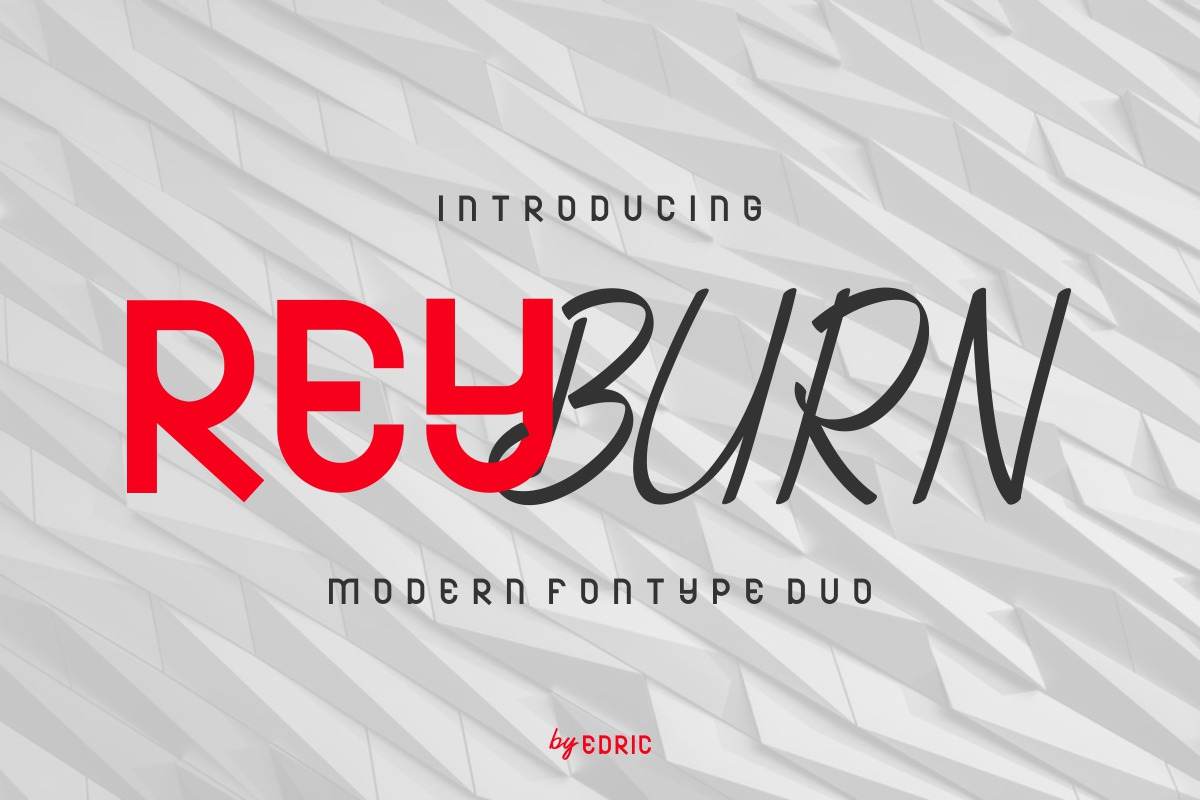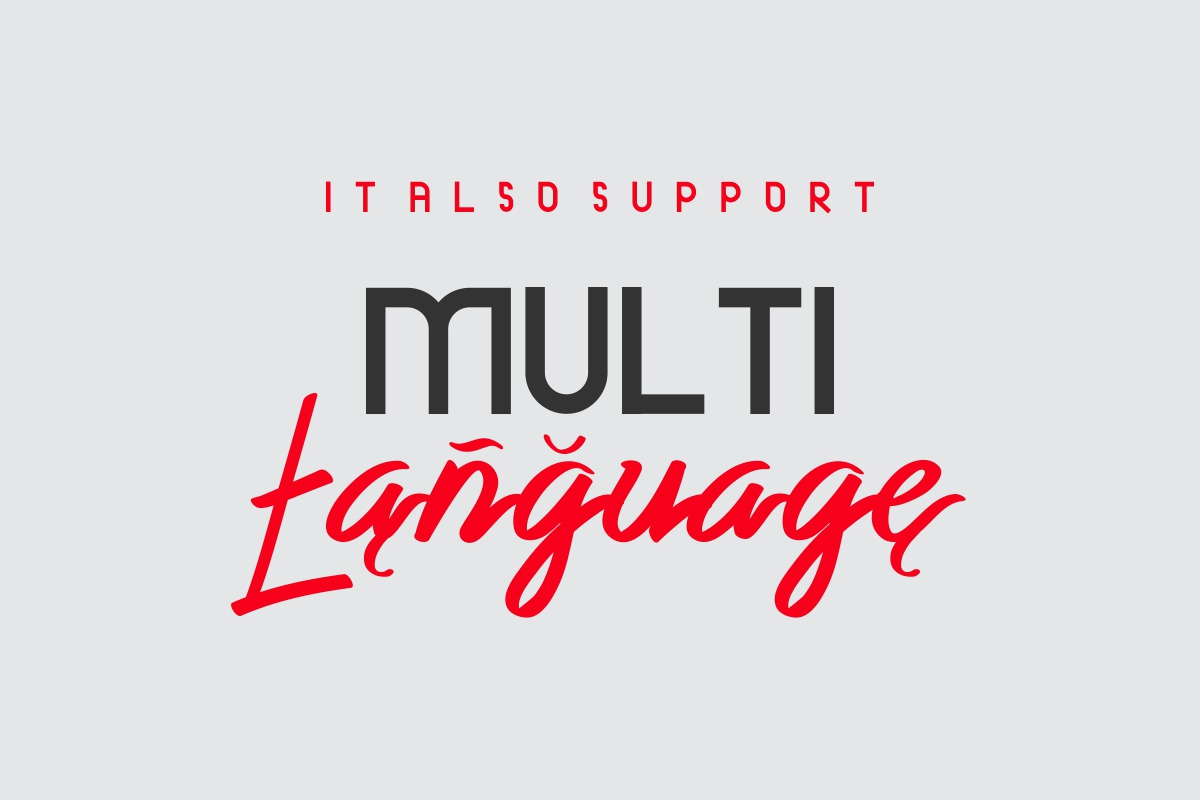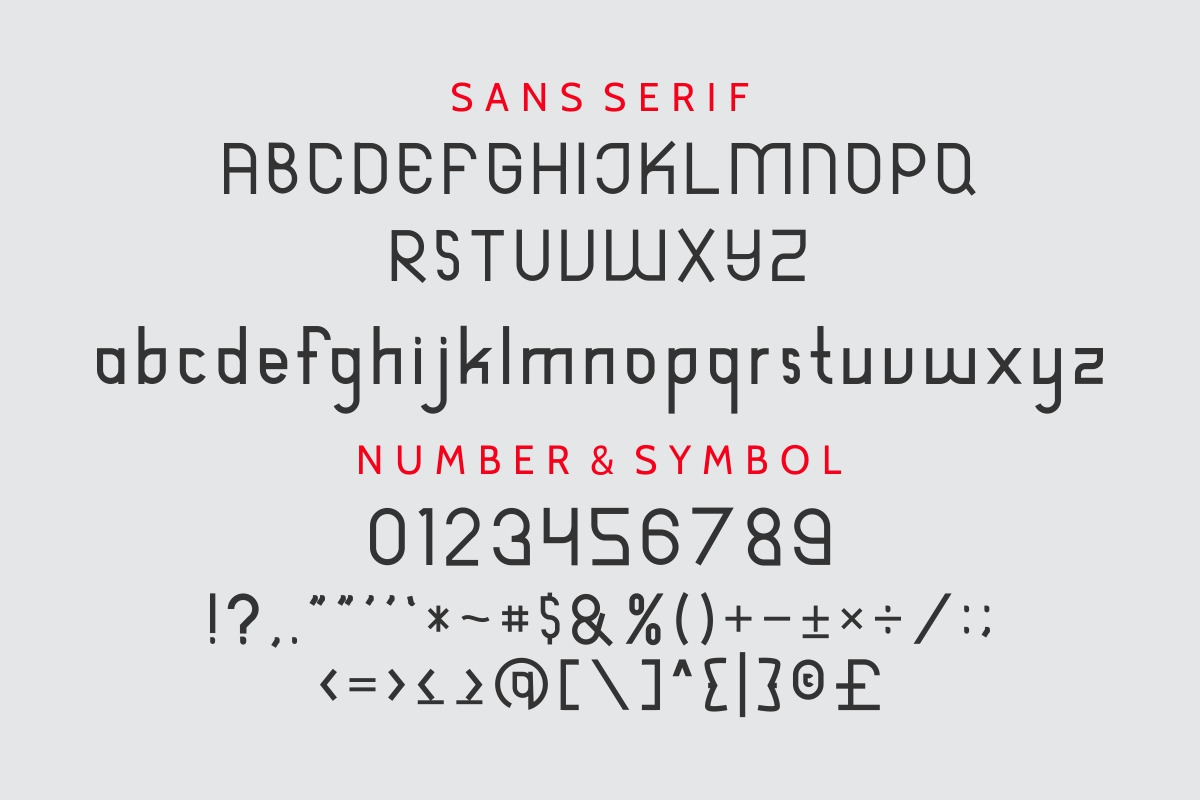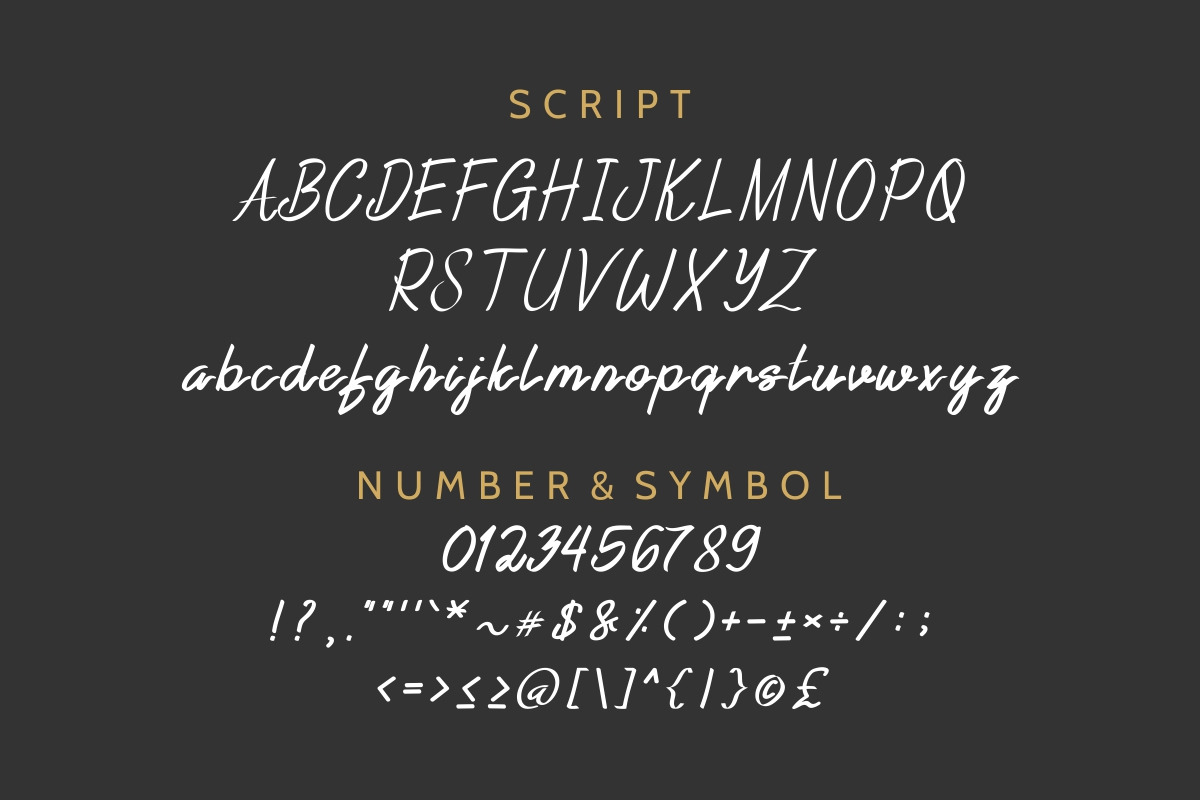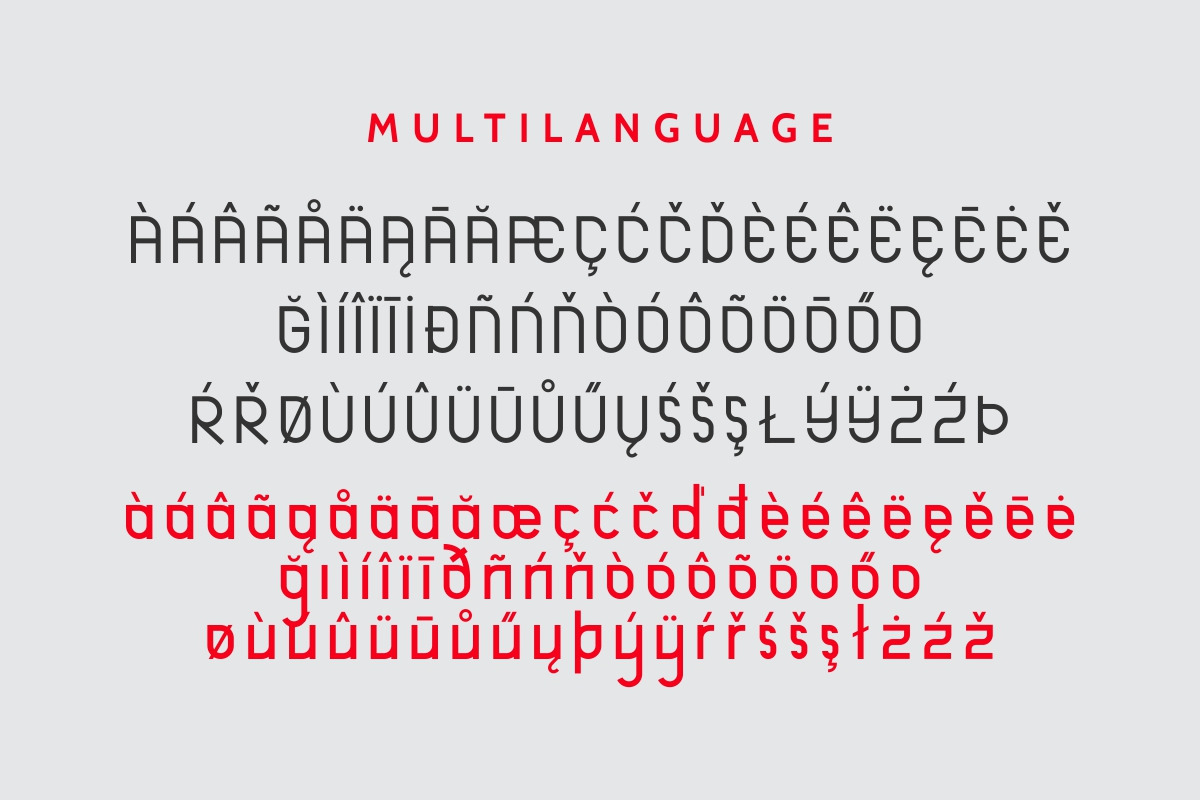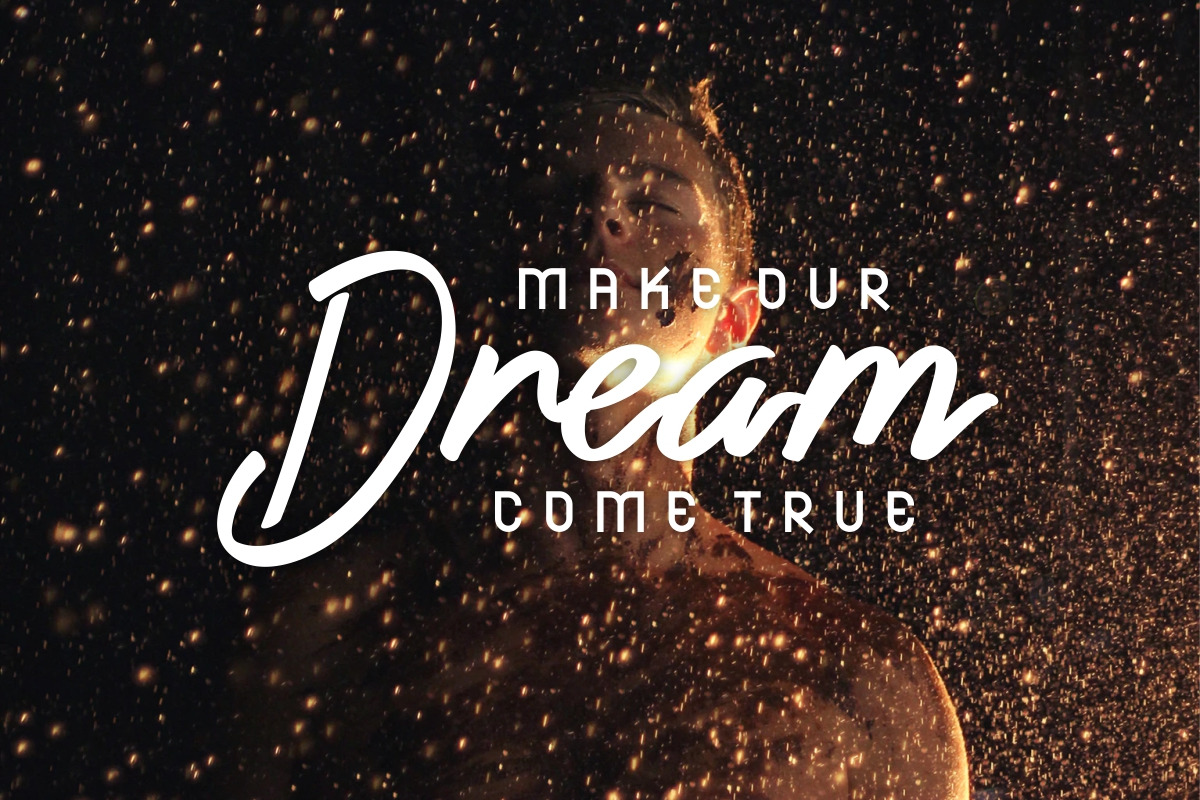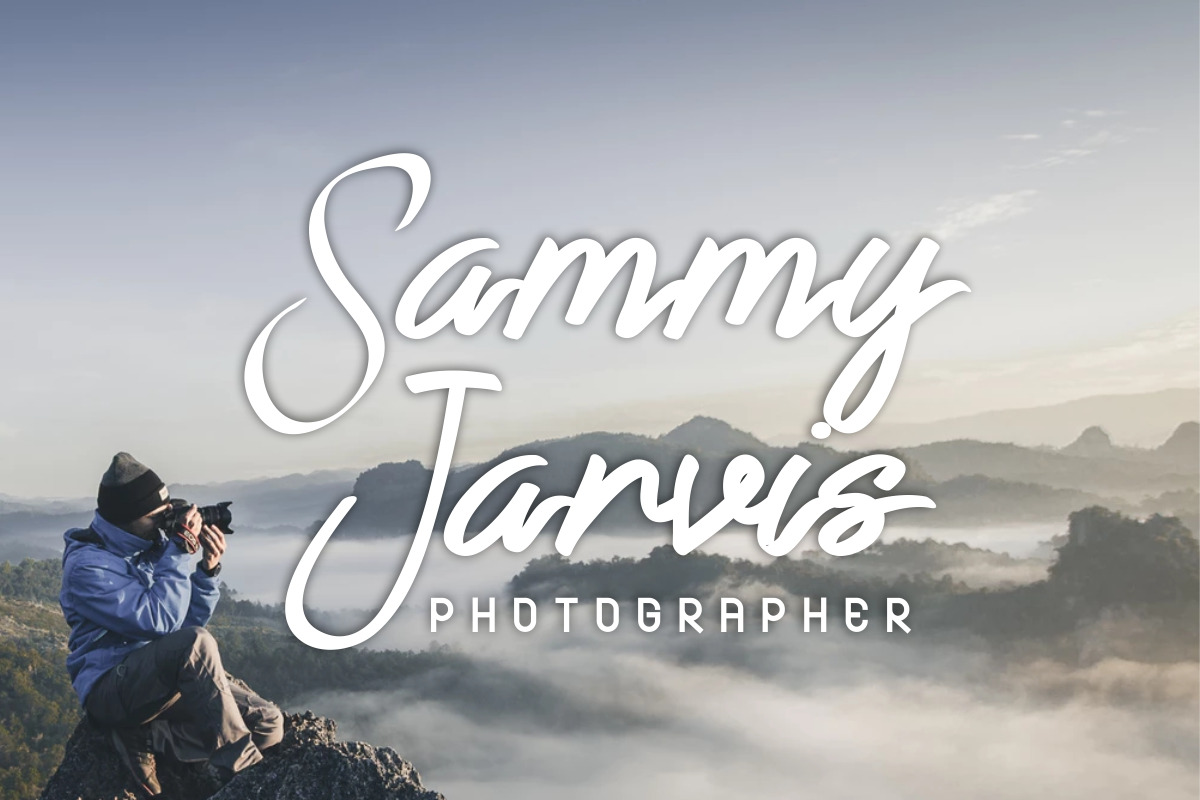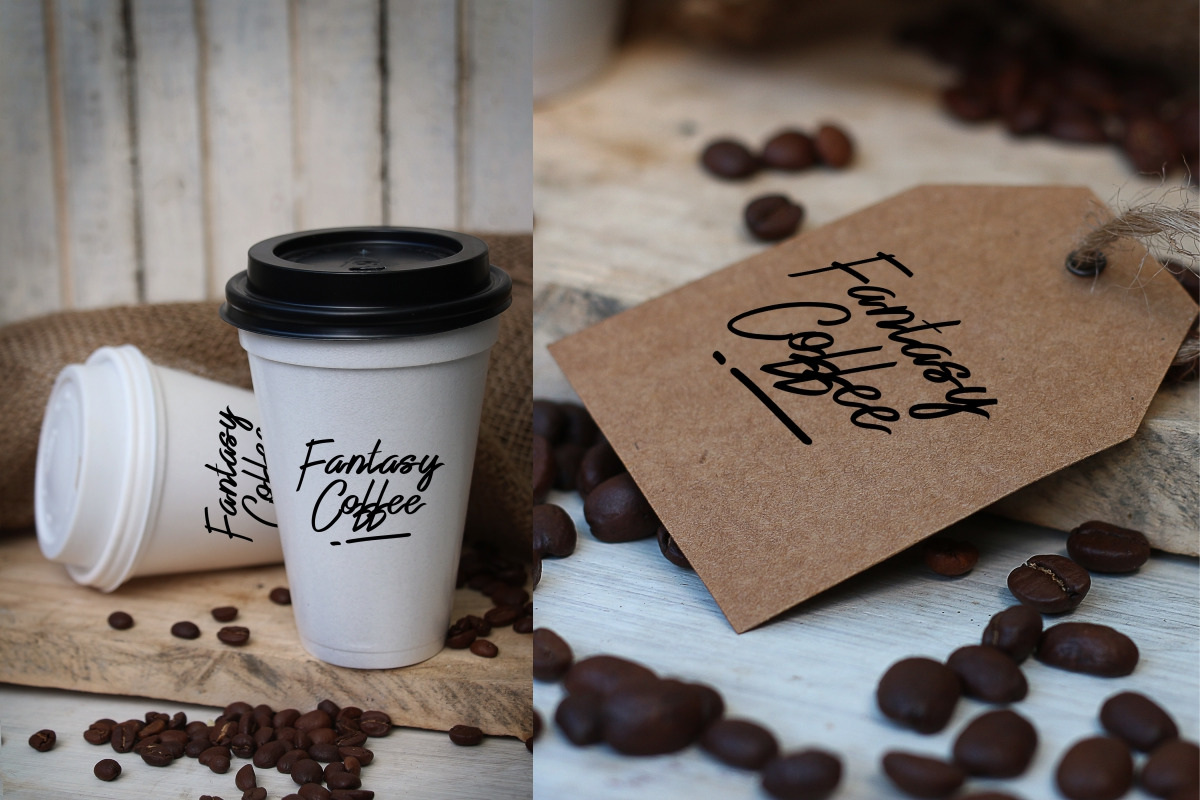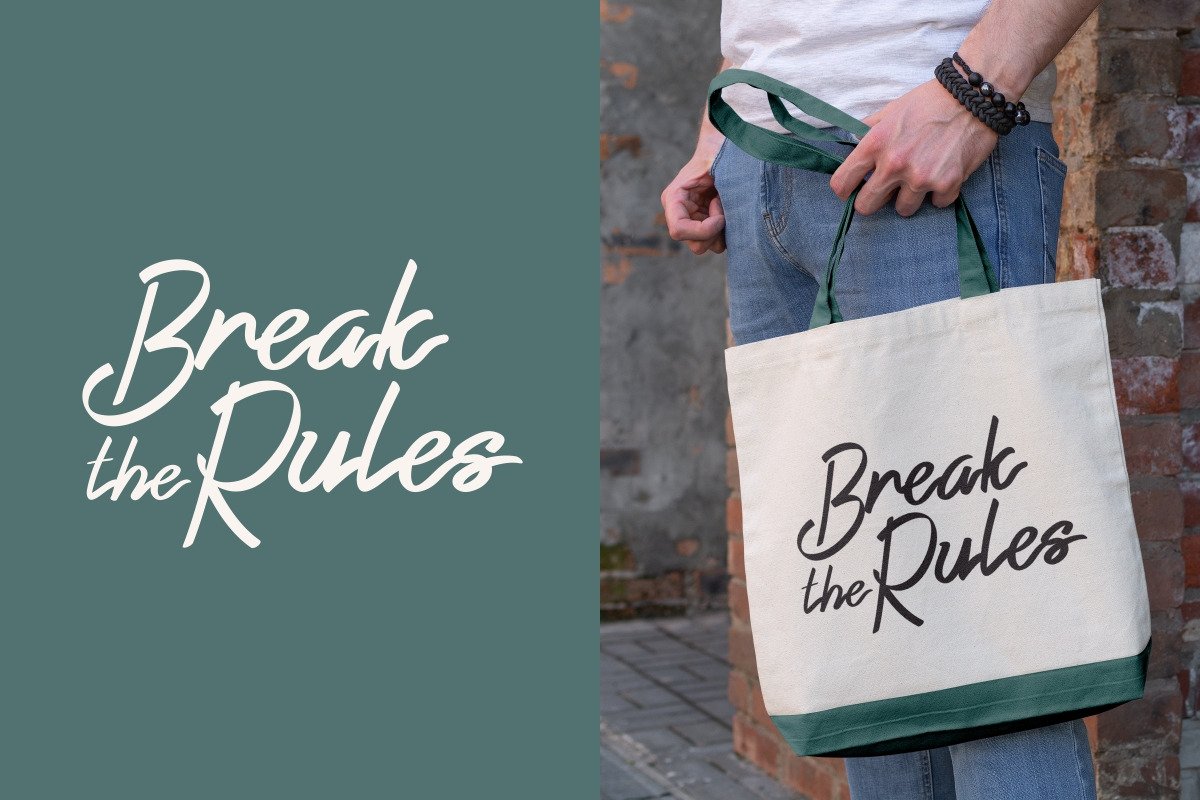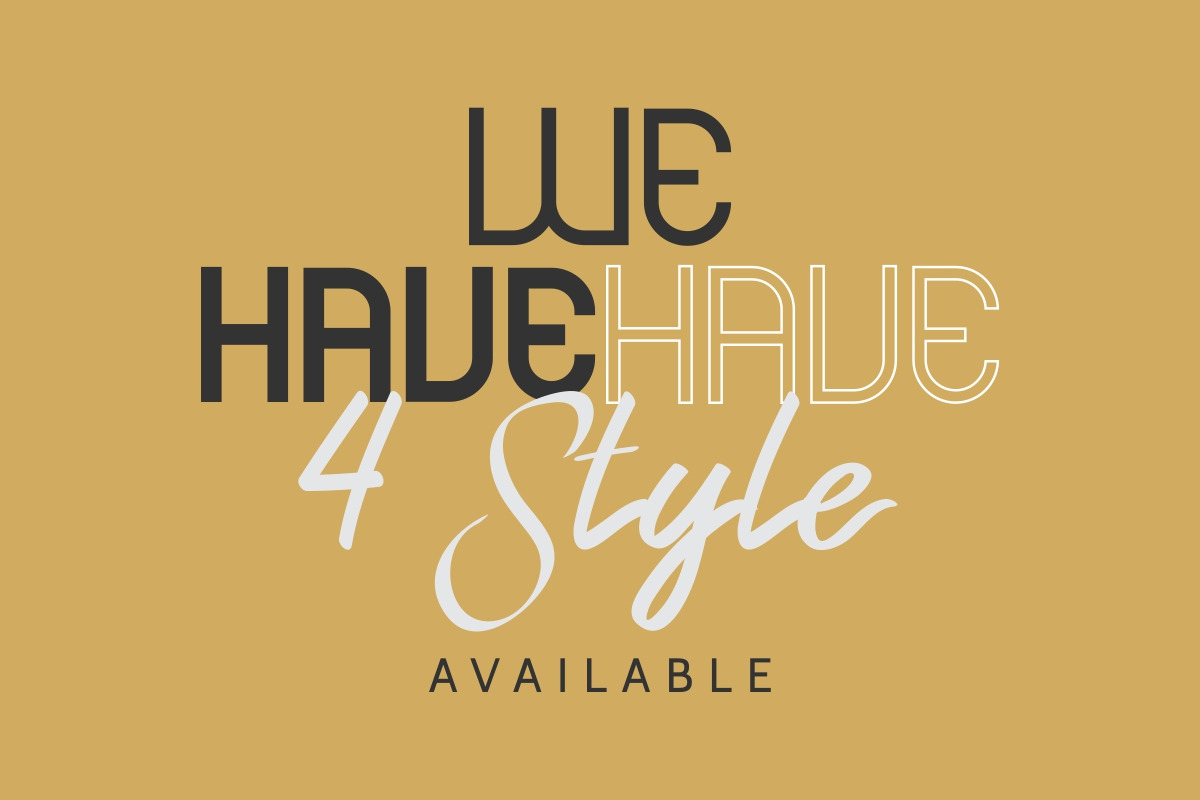
Reyburn 4 Style Font
Introducing our newest font family : Reyburn !
Reyburn is a new modern family consist of four font styles. It has a fresh, elegant and stylish glyphs. It also support multilanguage accents
Two Styles : Regular, Bold, Outline and Script. It’s all in one font. You can work on many cases : wedding, personal brand, food and beverage, technology, photography, sales marketing etc